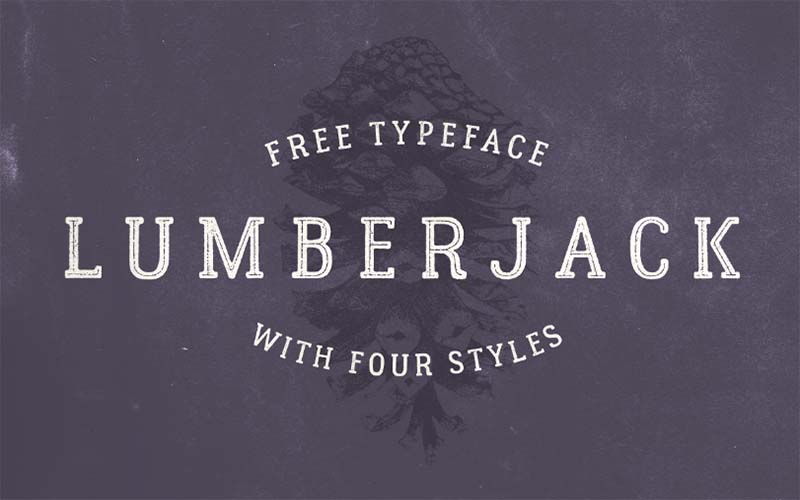
Lumberjack Font is a free serif and display typeface that has a bold, clean, fun stylish appearance. Mr. Alexey Kalinin took charge of designing it and publishing it for the first time.
This font is ideal for creating technical documents, book covers, unique emblems, posters, tattoos, badges, brand logos, clothing, labeling, printing on cards, and special cards, as well as many other similar things.
It’s a great font with a solid texture that makes it perfect for use in posters or banners such as printing and display. Therefore, it is really the best choice for this use.
Lumberjack Font
Each font is created after making a proper plan. That’s why there is a complete plan behind it. The designer has introduced a font that can work in a friendly way.
Each letter in this font has its own unique form but they all have one thing in common excellent quality. That way, they can provide a clean and professional look when used in any design.